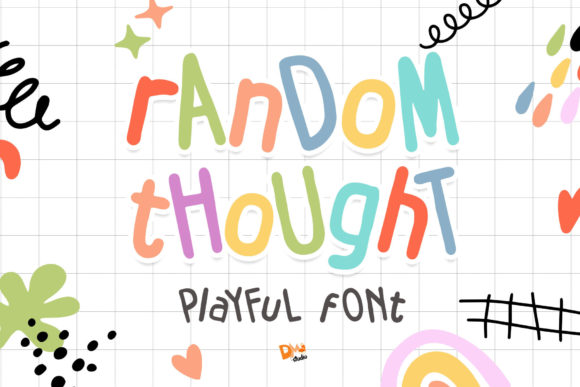
Unleash your creativity and embark on a typographic adventure with the captivating Random Thought Font. Step into a world where letters dance and words come alive, transforming your designs and projects into mesmerizing masterpieces.
The Random Thought Font is a true gem among display fonts, meticulously crafted to bring a touch of whimsy and charm to your creations. Its playful nature will ignite your imagination, inviting you to explore new horizons of visual expression.
Picture this: Your designs adorned with the Random Thought Font, radiating an aura of uniqueness and playfulness. From posters that demand attention to flyers that entice and captivate, this font will elevate your work to new heights. Its versatility knows no bounds, effortlessly adapting to a myriad of projects, each one imbued with a distinct personality.
Imagine the impact of your words when they're presented in the captivating curves and strokes of Random Thought. Your messages will dance off the page, leaving an unforgettable impression on your audience. Its charm will resonate with them, creating a connection that goes beyond words.